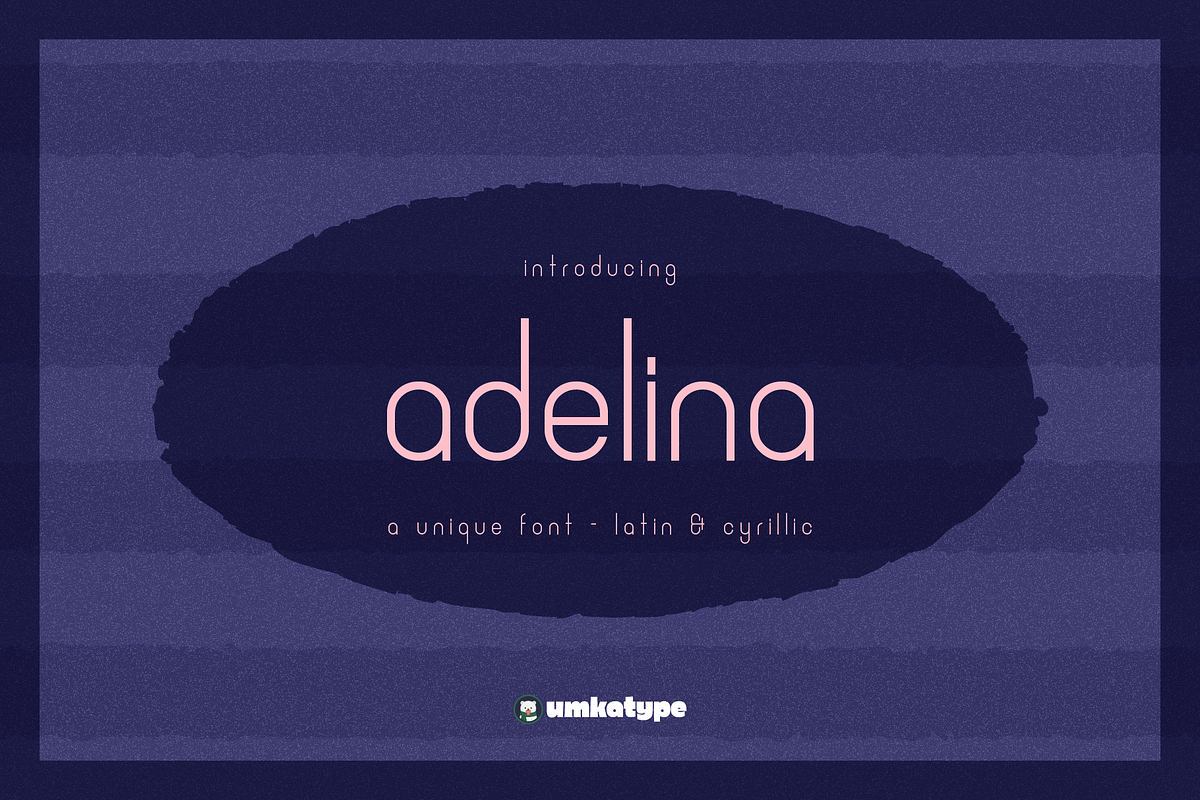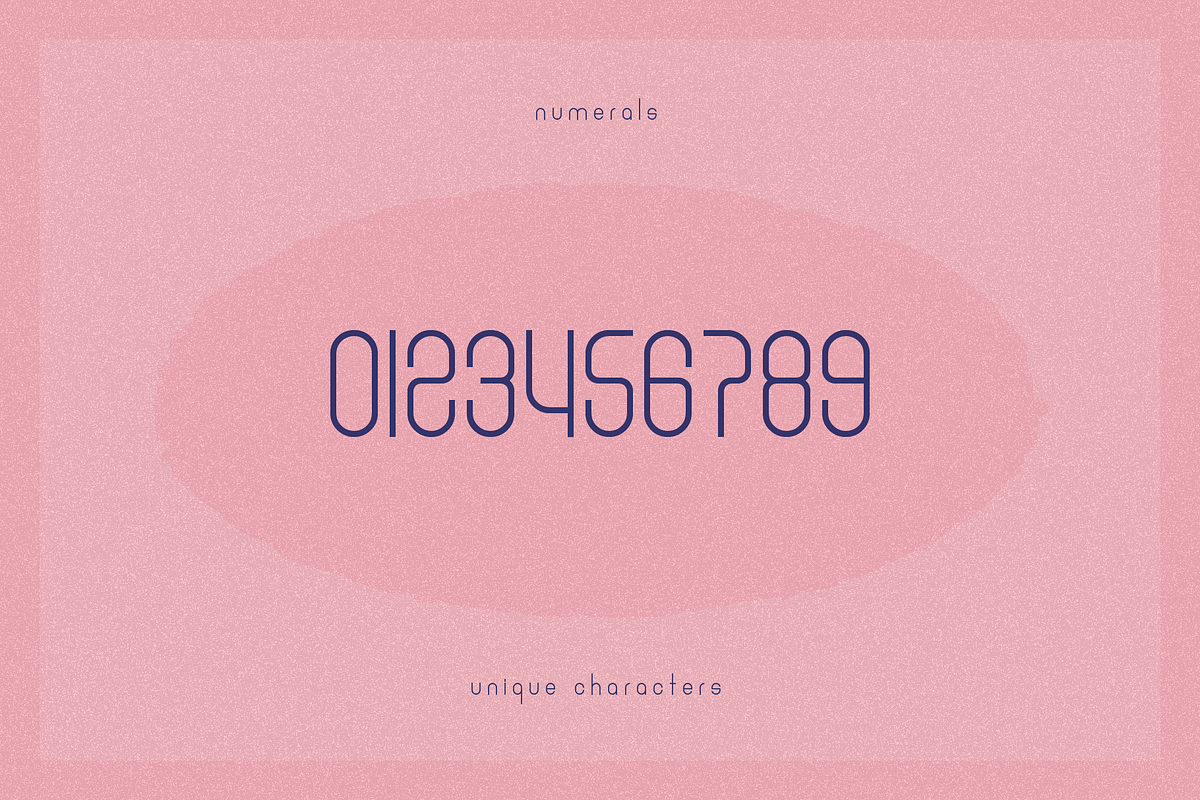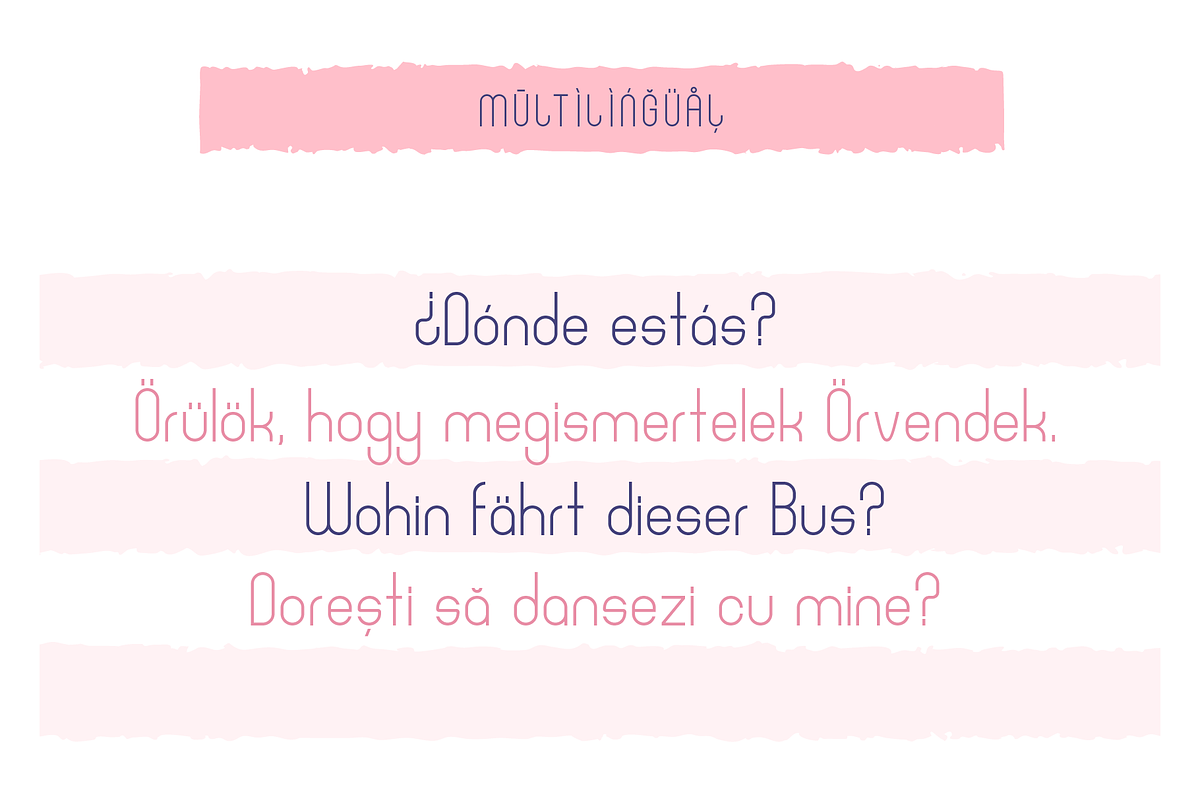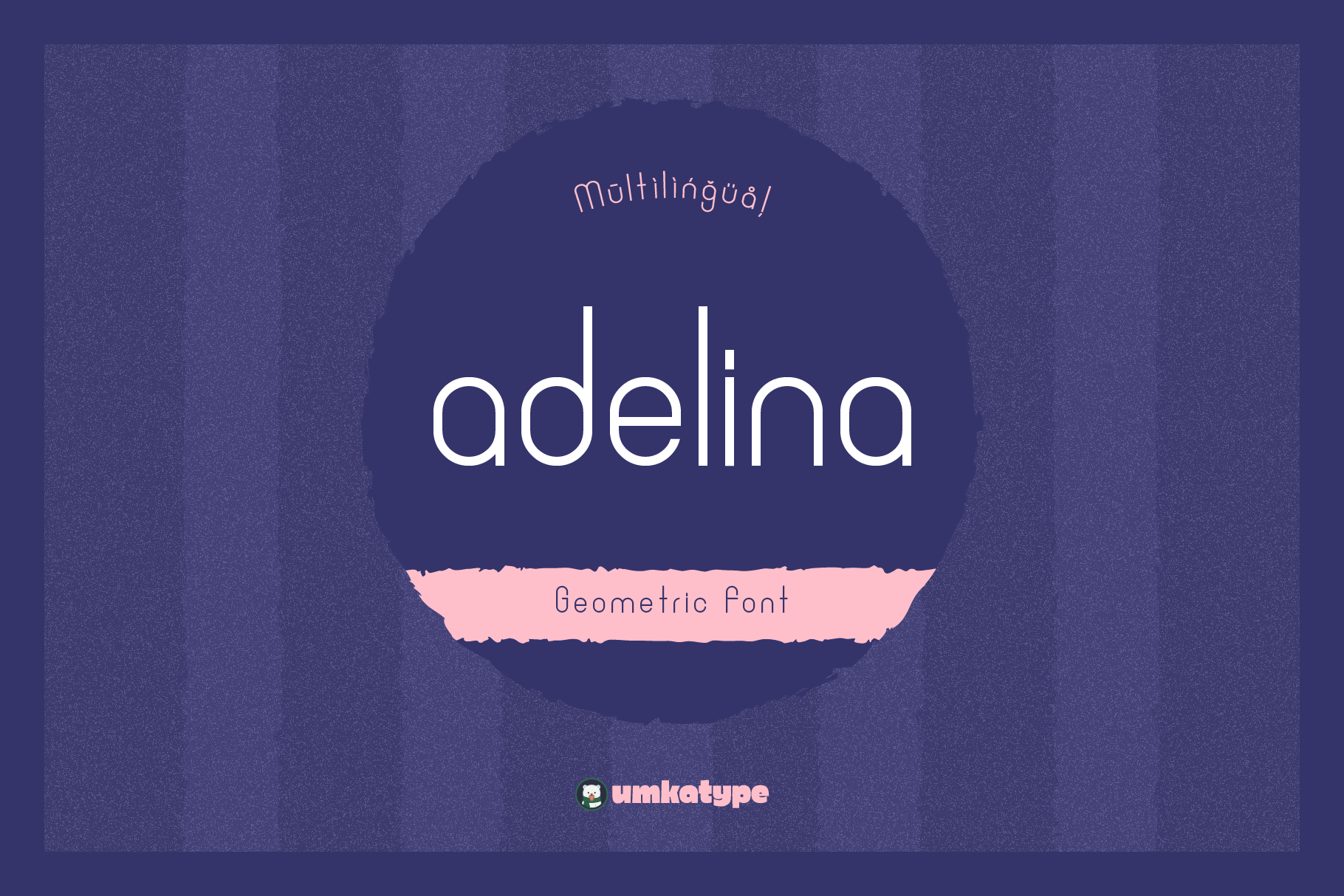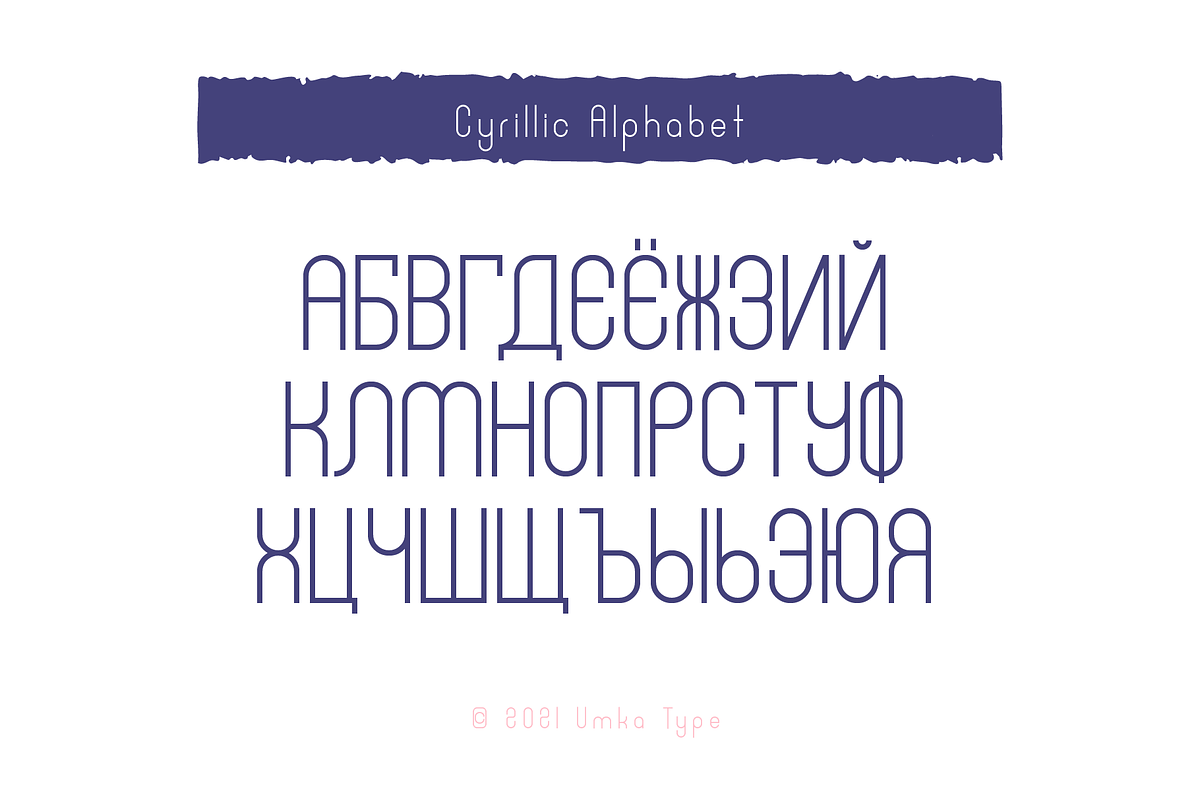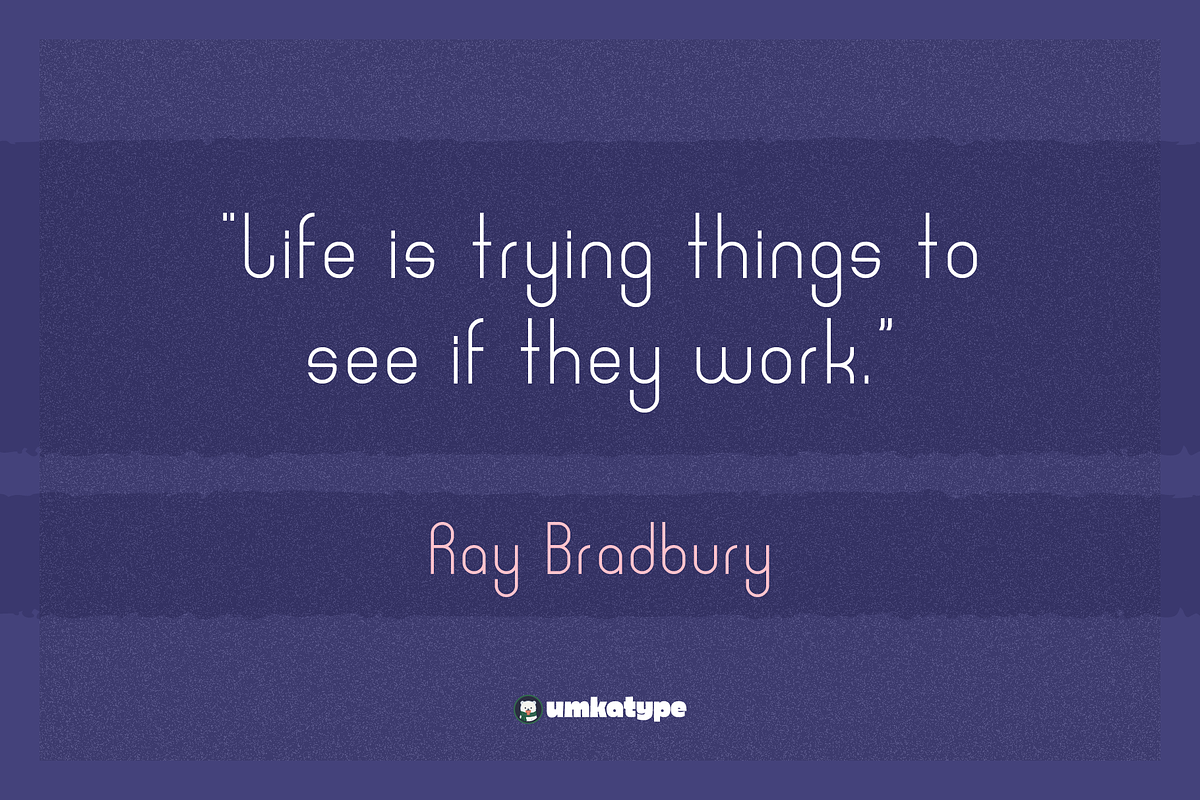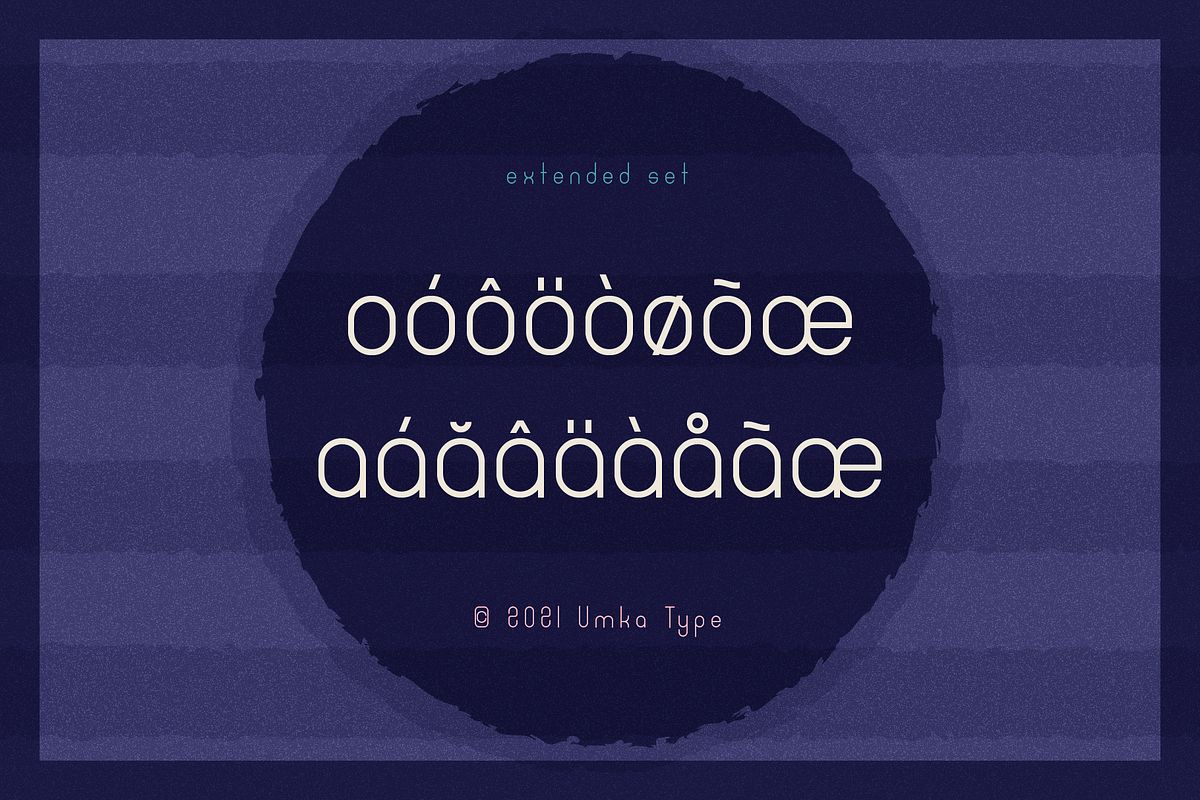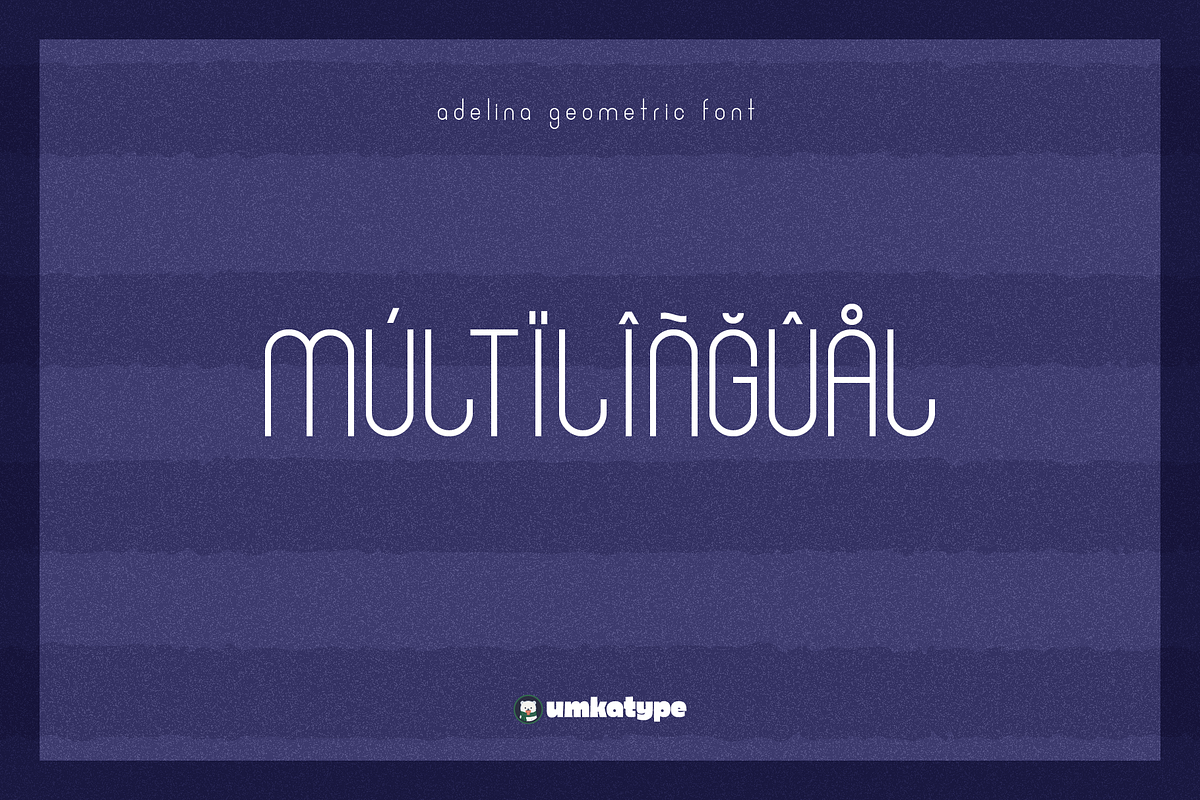
Adelina Font
Adelina - A Sans Serif Font
- Adelina is a carefully crafted font.
- Multilingual: It has Extended Latin and Extended Cyrillic letters.
Adelina created for web design, branding and social media works.